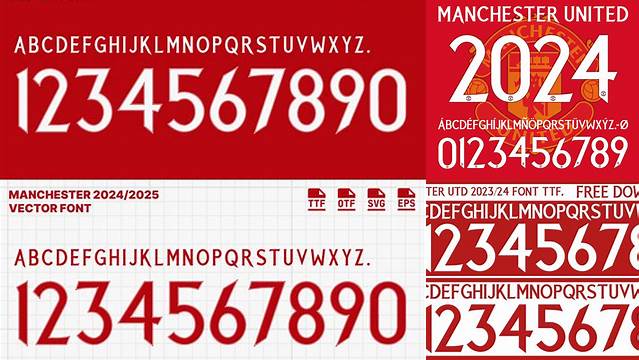
Hey guys! Are you a die-hard Manchester United fan? Do you love customizing your jerseys or creating fan-made designs? Well, you're in the right place! We're diving deep into everything about the Manchester United jersey font for the 2025/26 season, and the best part? We'll show you where you can grab it for free!
Understanding the Importance of the Jersey Font
Okay, so why is the font so important anyway? It's more than just letters and numbers; it's a crucial part of the Manchester United brand identity. The font used on the jerseys helps create a cohesive and recognizable look, both on and off the field. Think about it: when you see that specific font, you instantly associate it with the Red Devils. The font choice reflects the club's history, its values, and its overall image. A strong, bold font can convey power and dominance, while a more elegant font might hint at tradition and class. Each season, the font is carefully selected to align with the jersey design and the club's current narrative.
The jersey font plays a significant role in fan merchandise as well. Imagine buying a jersey with your favorite player's name and number – the font is what makes it official and authentic. It’s a critical detail that fans appreciate, contributing to the overall feel of supporting their team. Plus, for those creative fans who love designing their own merchandise or digital art, having access to the official font opens up a world of possibilities. You can create everything from posters and banners to social media graphics that truly capture the spirit of Manchester United. In essence, the font is a powerful tool that connects the team, its brand, and its passionate supporters. Getting it right each season is a big deal, ensuring that the visual representation of the club remains strong and consistent.
What to Expect from the 2025/26 Font
Now, let's talk about what we might expect for the 2025/26 season. While the official font hasn't been released yet, we can make some educated guesses based on past trends and current design aesthetics. Historically, Manchester United has favored fonts that are both modern and classic, balancing a contemporary feel with a nod to the club's rich heritage. We often see a preference for strong, legible fonts that stand out on the jersey, ensuring that player names and numbers are easily visible from the stands and on television.
Looking at recent trends in sports typography, there's a move towards cleaner, more minimalist designs. This doesn't necessarily mean boring; instead, it's about creating a font that is impactful without being overly fussy. Think bold sans-serif fonts with subtle unique touches that make them stand out. We might see variations in weight (the thickness of the font) or slight modifications to the letterforms to give the font a distinctive character. It’s also worth considering the overall design language of the kit itself. The font will likely complement the colors, patterns, and any other graphic elements on the jersey. For example, if the kit features a bold, geometric design, the font might follow suit with a similarly structured appearance. Conversely, if the kit is more traditional, we might see a more classic font choice. Of course, there's always the possibility of a surprise. Some seasons, clubs opt for a completely unexpected font to make a statement. This could be a collaboration with a specific designer or a custom-made font that is entirely unique to the club. Whatever the choice, you can bet that it will be carefully considered to reflect Manchester United's image and aspirations for the season.
There you have it, guys! Everything you need to know about the Manchester United jersey font for the 2025/26 season, including where to find it for free and how to use it effectively in your designs. Remember, the font is a crucial part of the Manchester United brand, and using it correctly can help you create authentic and impactful visuals. Whether you're a die-hard fan looking to customize your jersey or a designer working on a Manchester United-themed project, having access to the right font is essential. So go ahead, download the font, unleash your creativity, and show your support for the Red Devils in style! And always remember to respect copyright and licensing terms when using fonts in your projects. Now, go make some awesome designs!